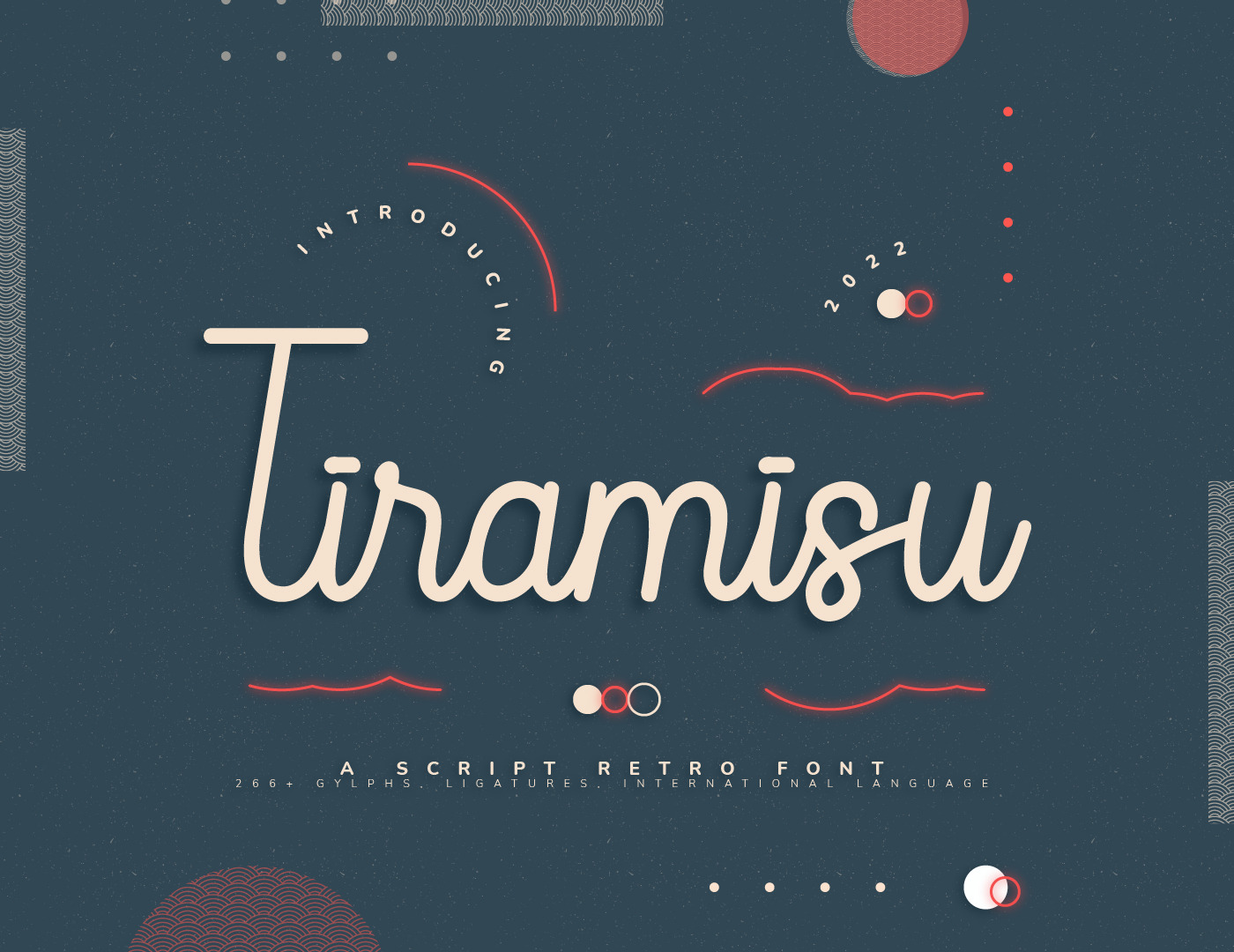
Tiramisu Retro Script Font
Introducing fresh Script Font design made in 2022, Tiramisu. Wavy and compact as the Japan's ocean and island, it is bringing us Japan feels. Were designed creatively with special curving make "Tiramisu" is perfectly remarkable. This is featuring with multilingual, symbol, twenty-six alphabet, and more than from thirty ligatures. "Tiramisu" were well-designed for branding, letter, card, poster, headmaster, and more. Japan vibes will make the design look delightful and irresistible.